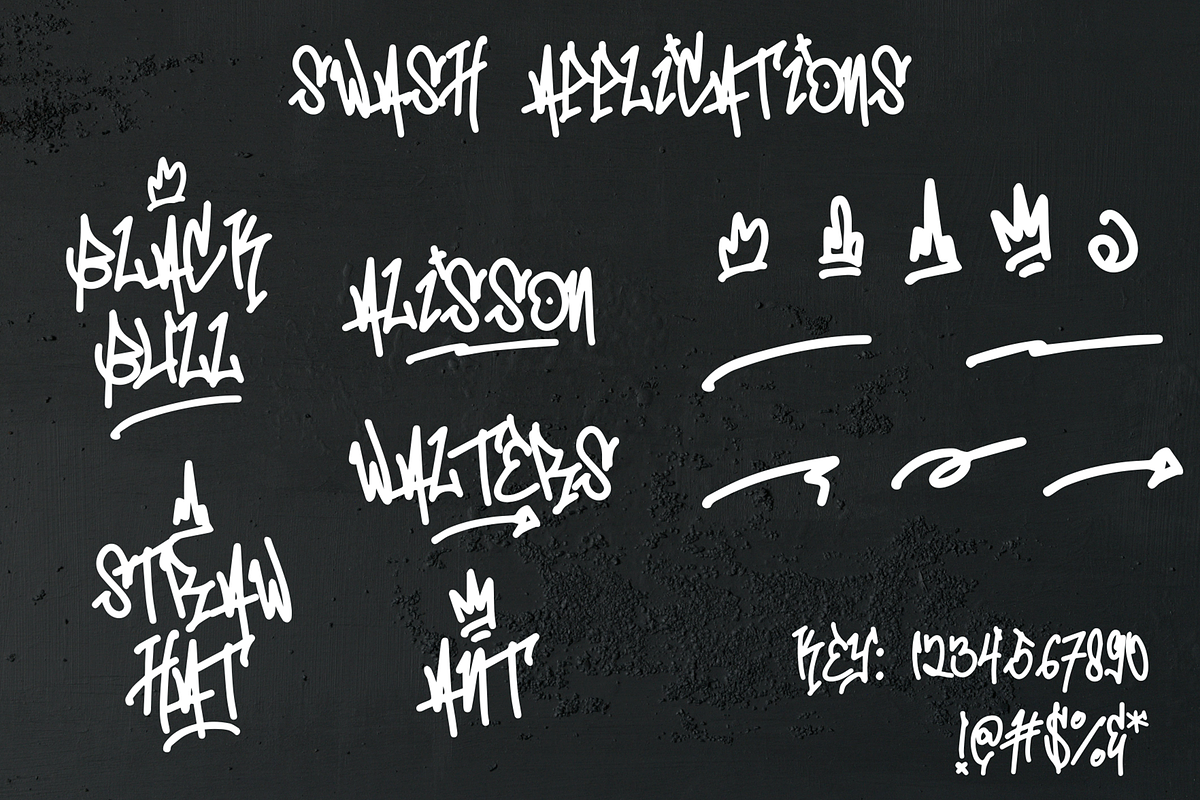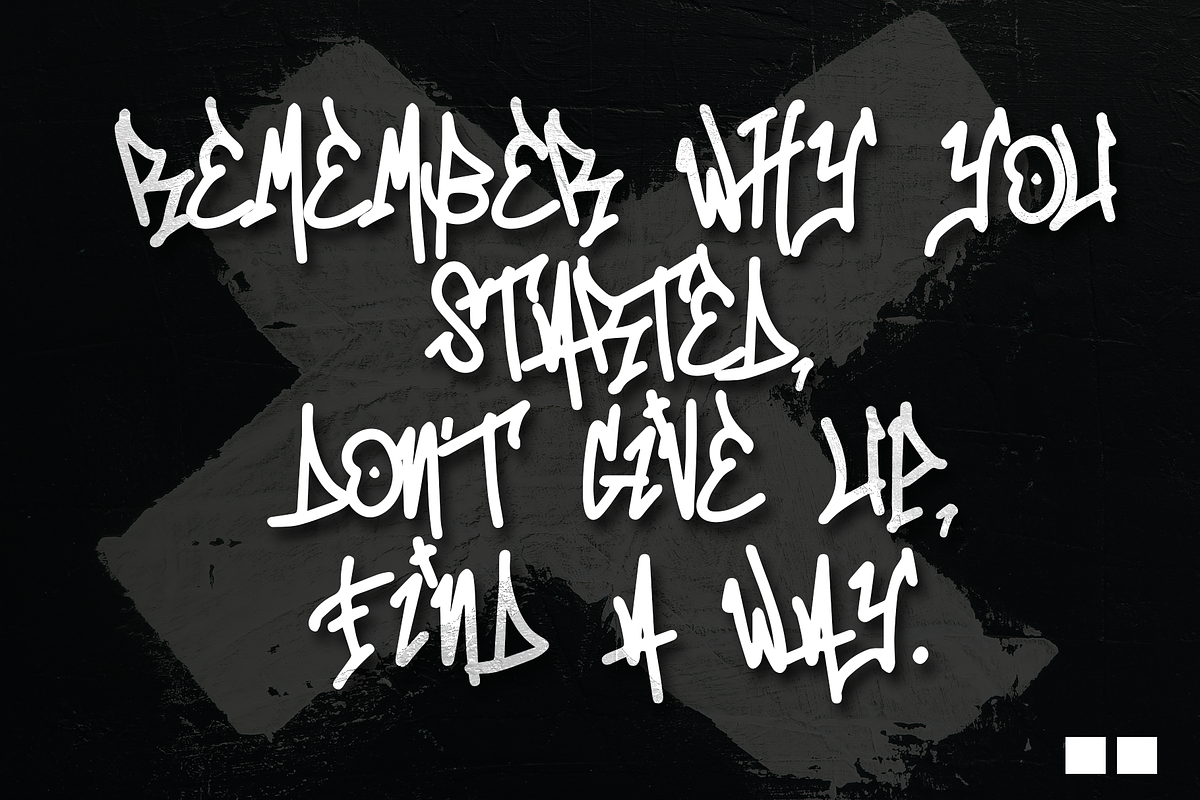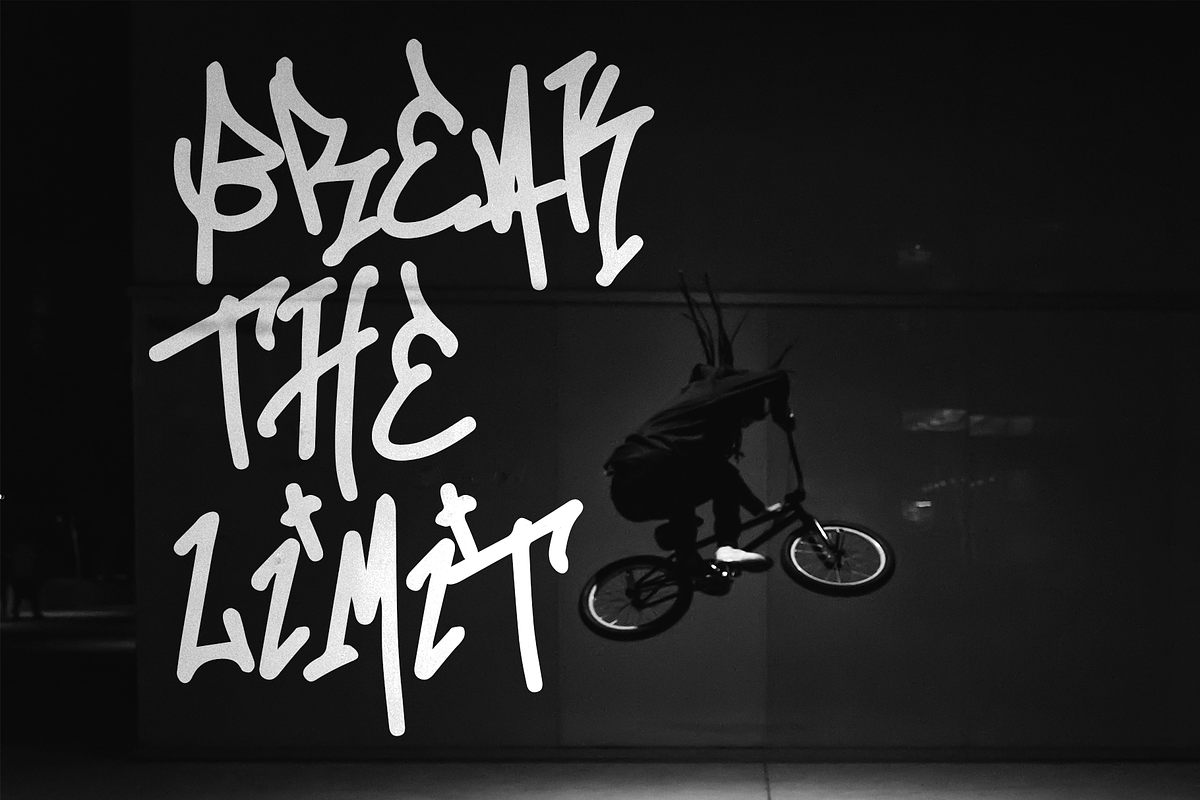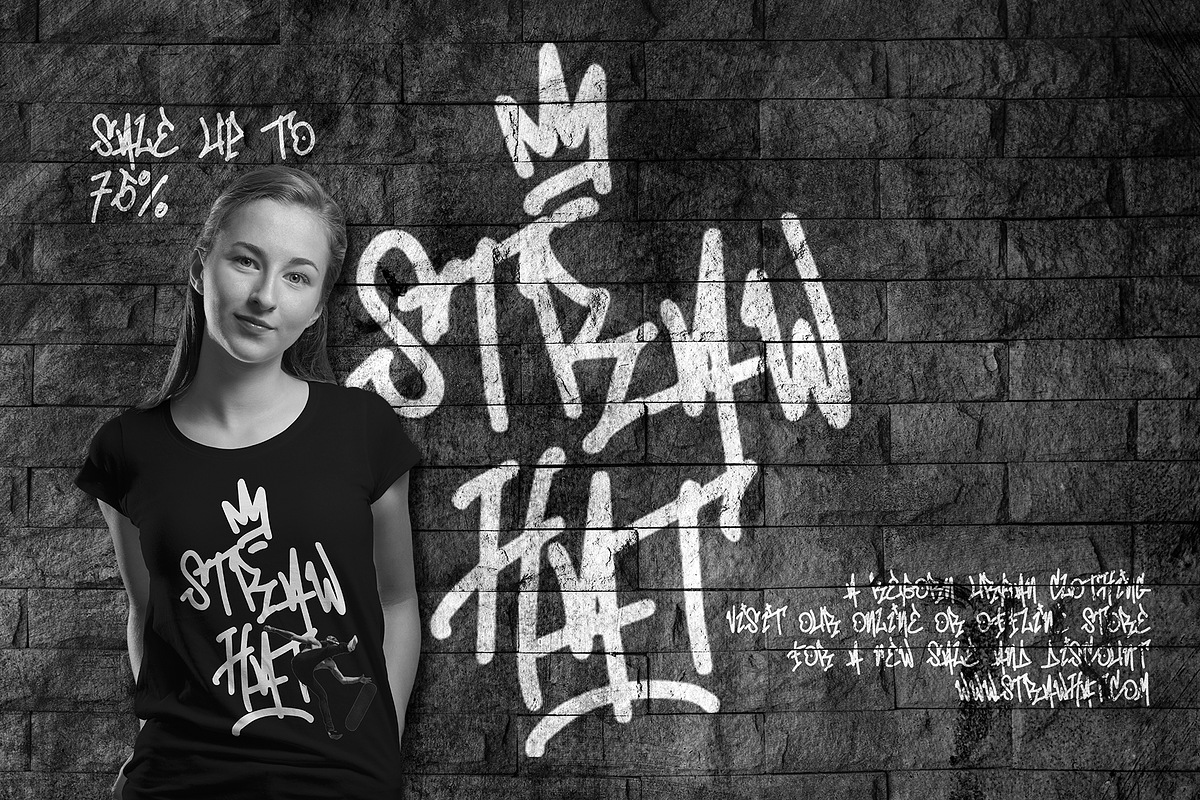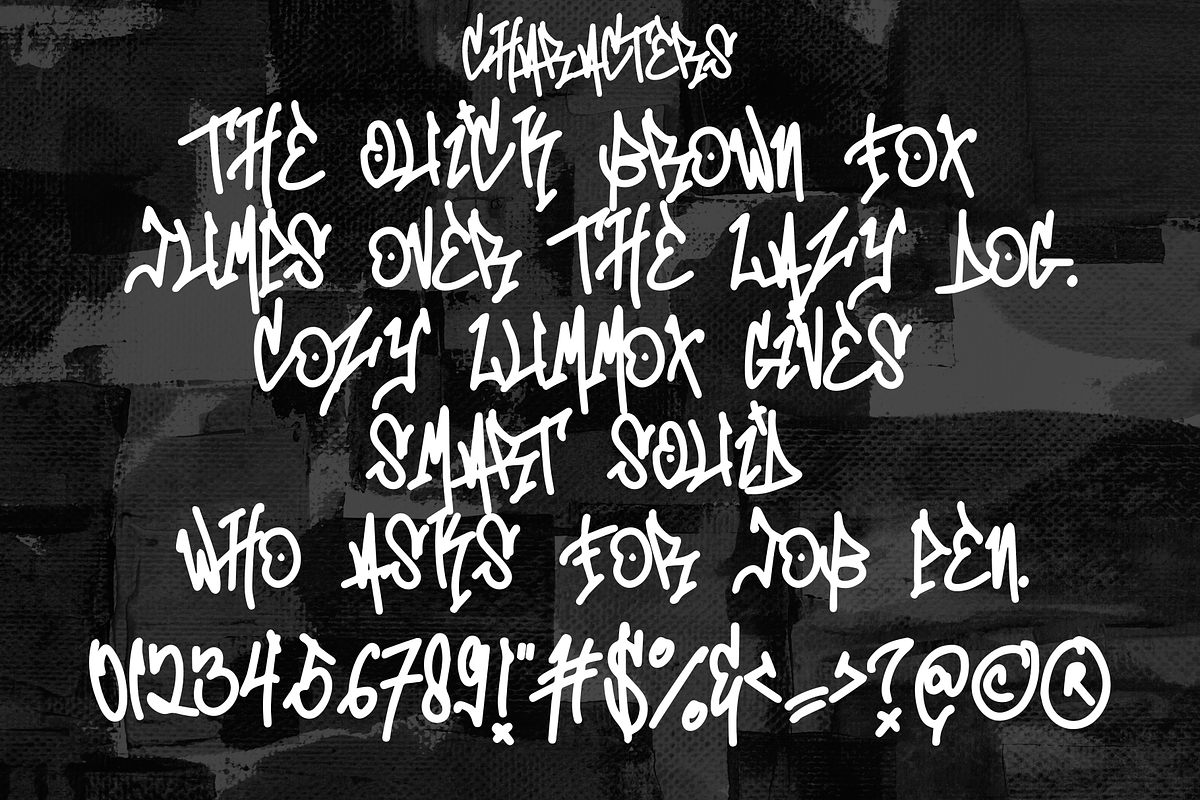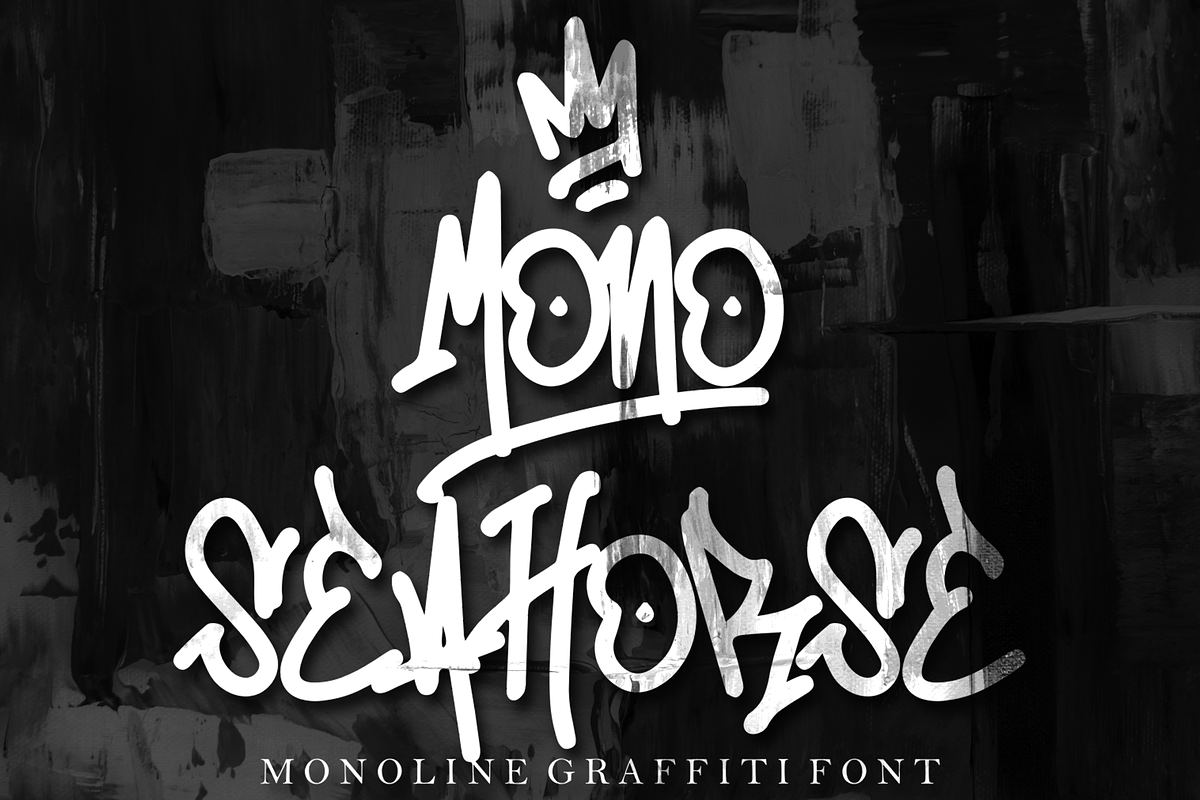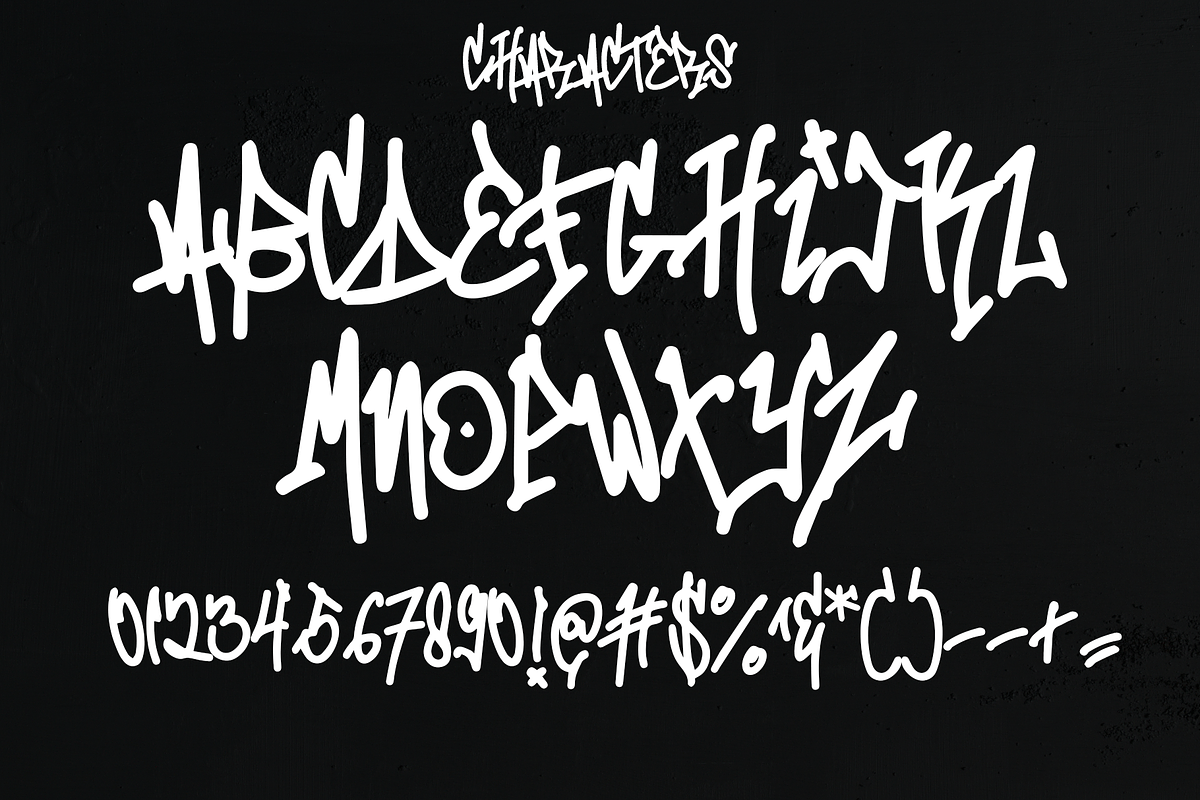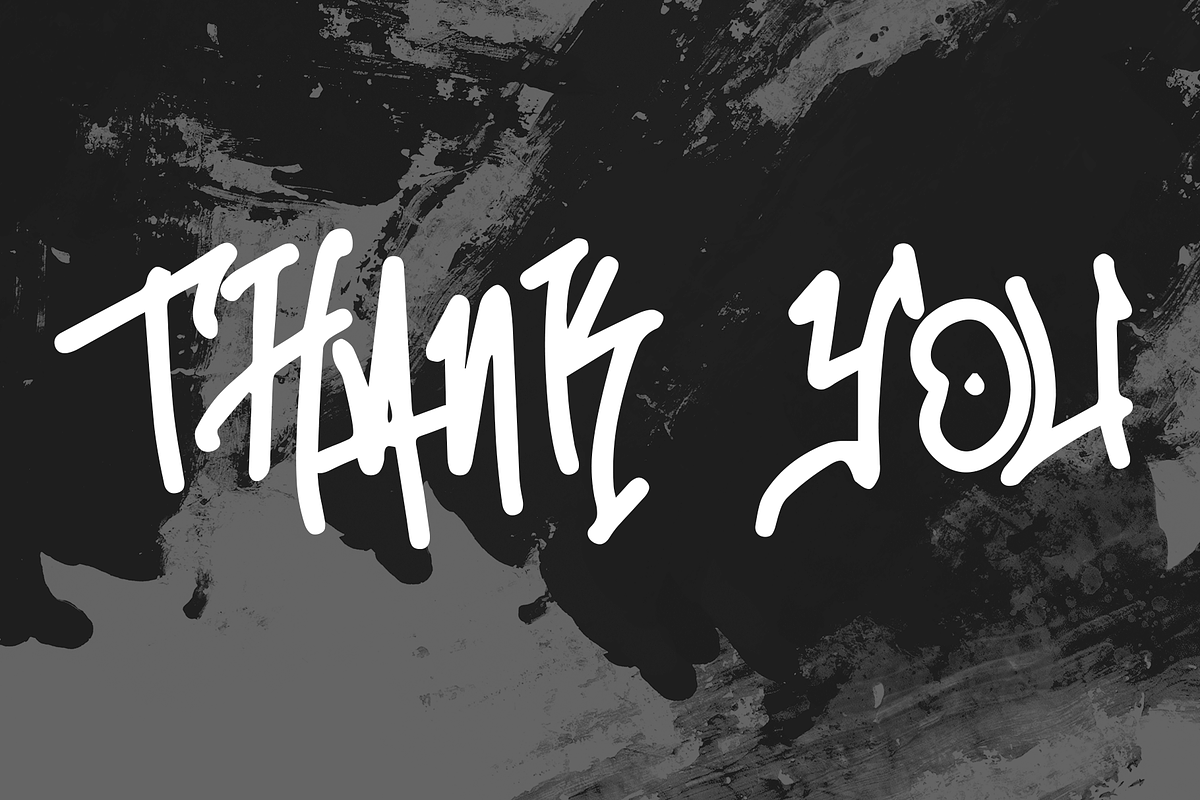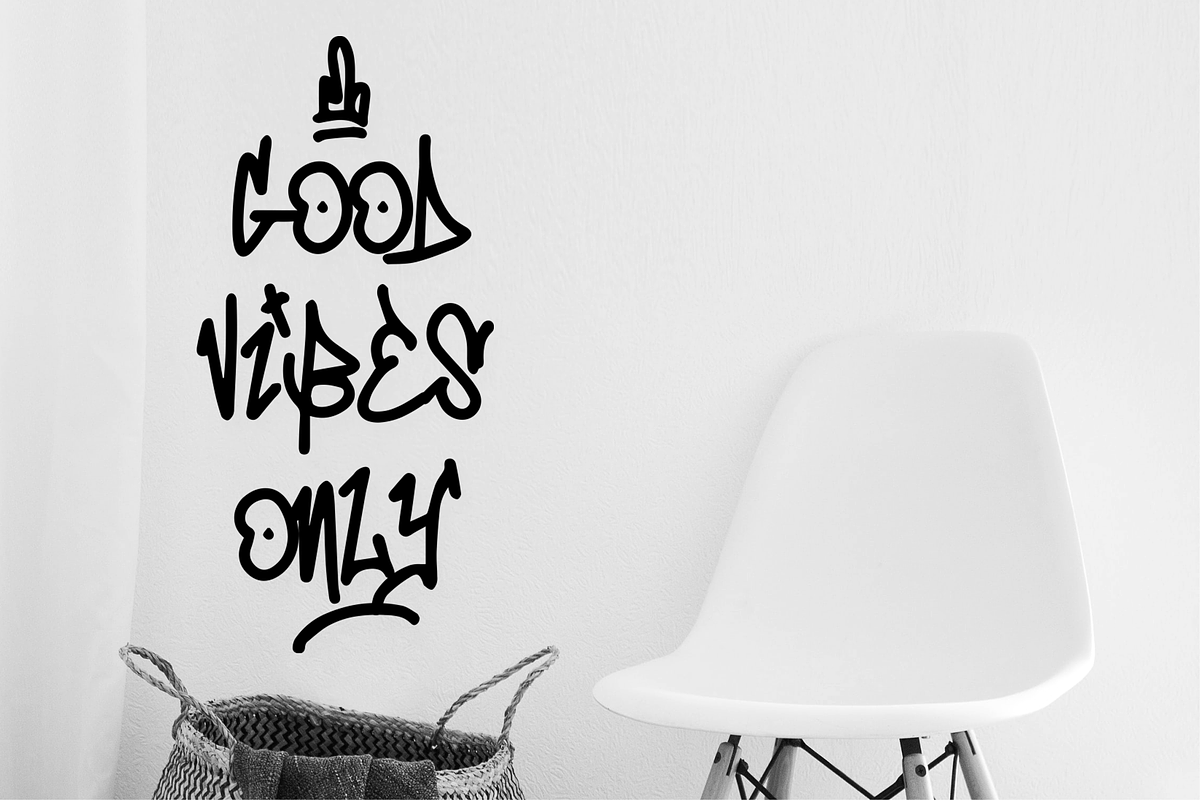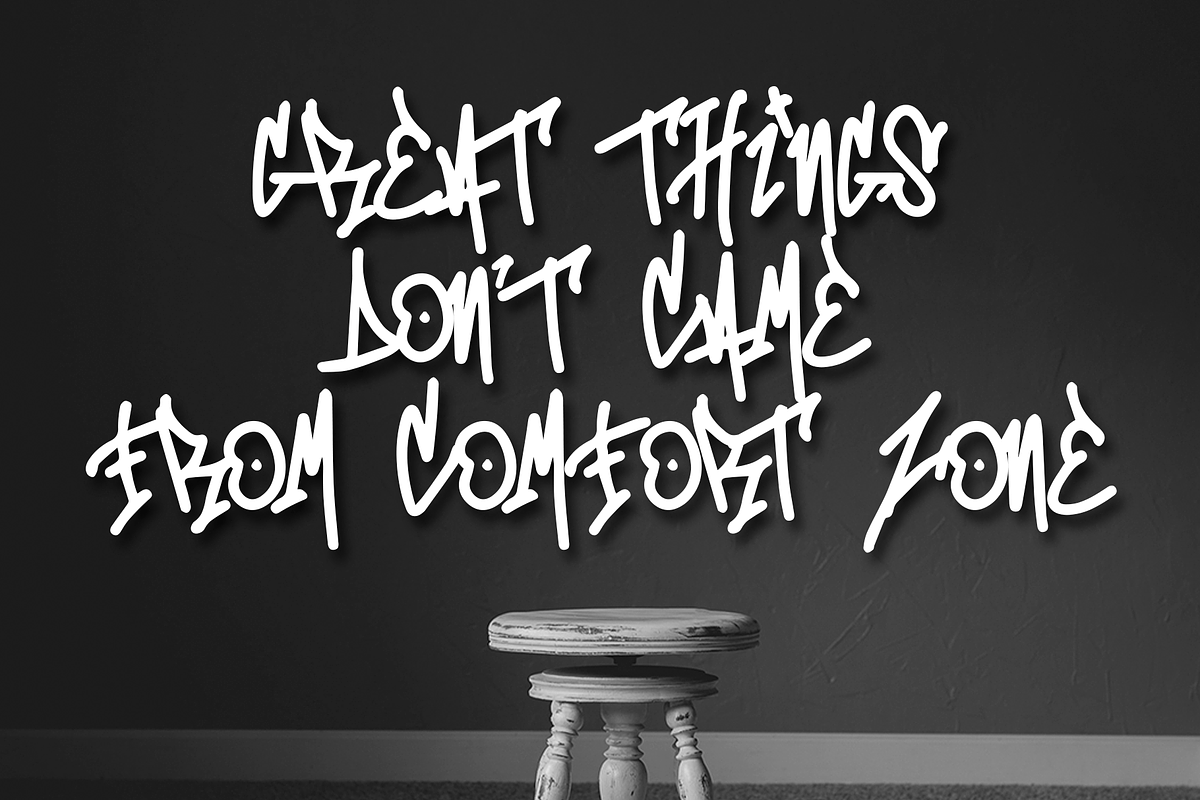
Mono Seahorse
Mono Seahorse is a display font with a monoline graffiti style, there is some swash for your awesome design. It will elevate a wide range of design projects to the highest level, be it branding, headings, wedding designs, invitations, signatures, logos, labels, and much more!
Featured :
Uppercase Number and Punctuation Stylistic Alternate (Swash)